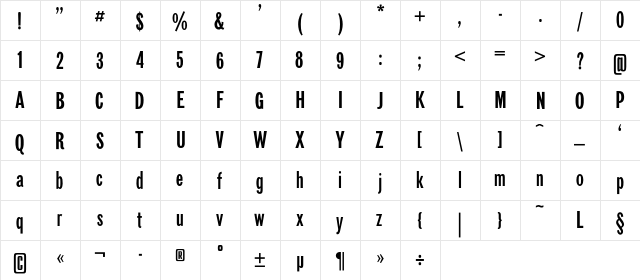
NewspaperSansC Regular
Design Context for NewspaperSansC Typeface
NewspaperSansC takes a measured approach to typography — its balanced proportions and neutral character make it a reliable workhorse for both digital and print work.